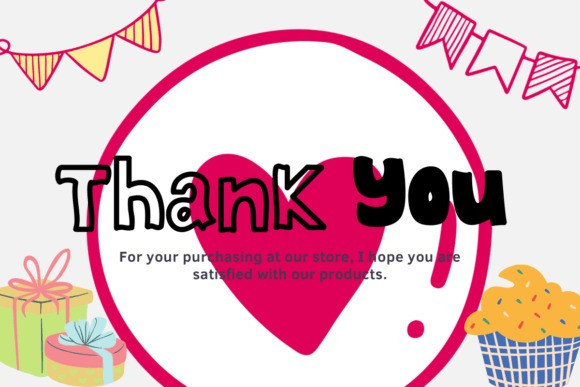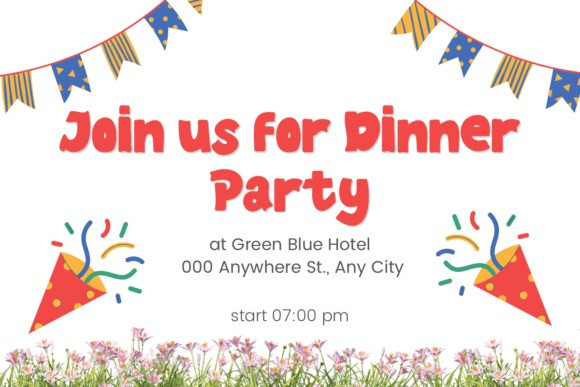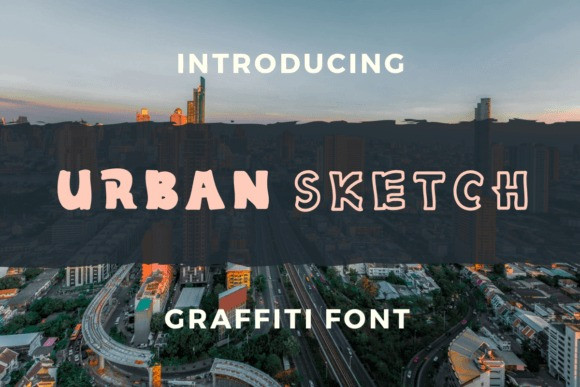
Urban Sketch Font
Urban Sketch Font, this font is made by handwriting to produce natural strokes and is made in 2 versions, a regular version and an outline version. This font is suitable for branding, logos, postcards, invitations, and others.